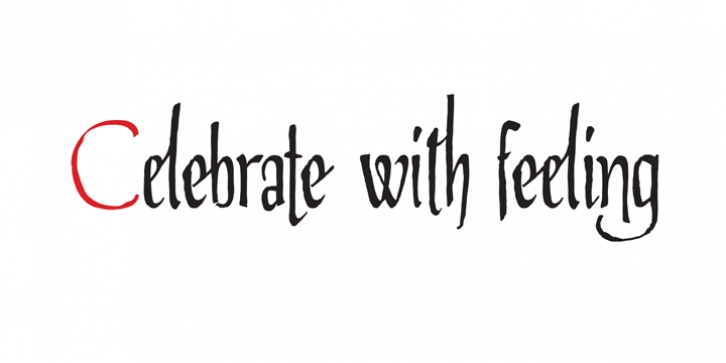
Agony downloadDesigner: Jesus Barrientos
Publisher: Talavera
This condensed type is based on roman calligraphy and through having several alternates (on both upper and lower case) plus some non standard ligatures your text may looks like it’s written or handmade. You can combine this font with Ecstasy, also available on MyFonts.